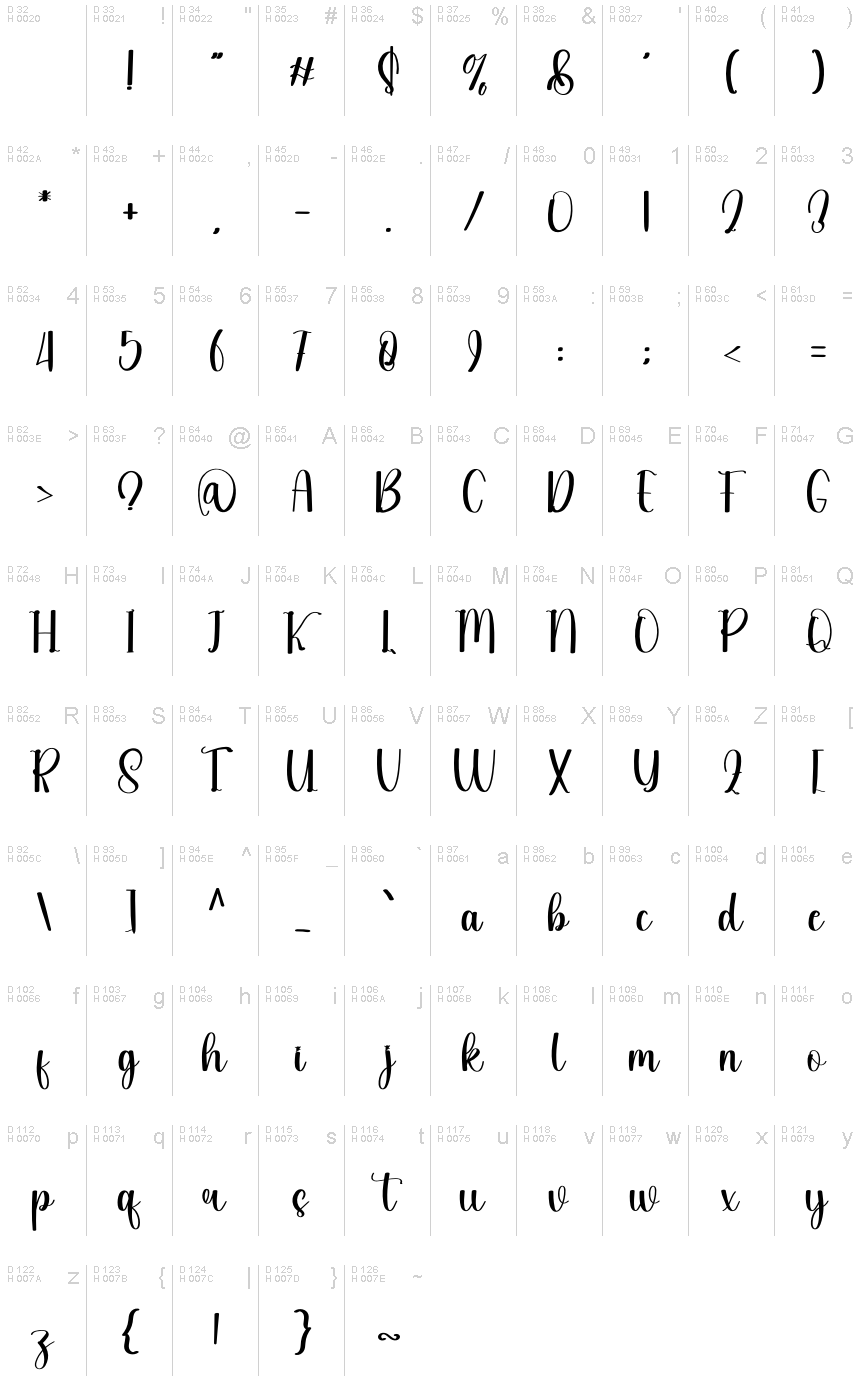
Doubling
Doubling, a captivating handwritten font crafted by PiPi Creative, exudes a distinct charm and personality. Its fluid strokes and organic curves create a sense of warmth and authenticity, inviting viewers to immerse themselves in its expressive essence. The font's dynamic interplay of thick and thin lines adds depth and visual interest, capturing the essence of handwritten elegance.
This versatile font can breathe life into a wide range of design projects, from editorial layouts and branding materials to packaging and digital interfaces. Its adaptability allows designers to infuse a touch of artisanal flair, elevating the overall aesthetic and conveying a sense of personal touch.